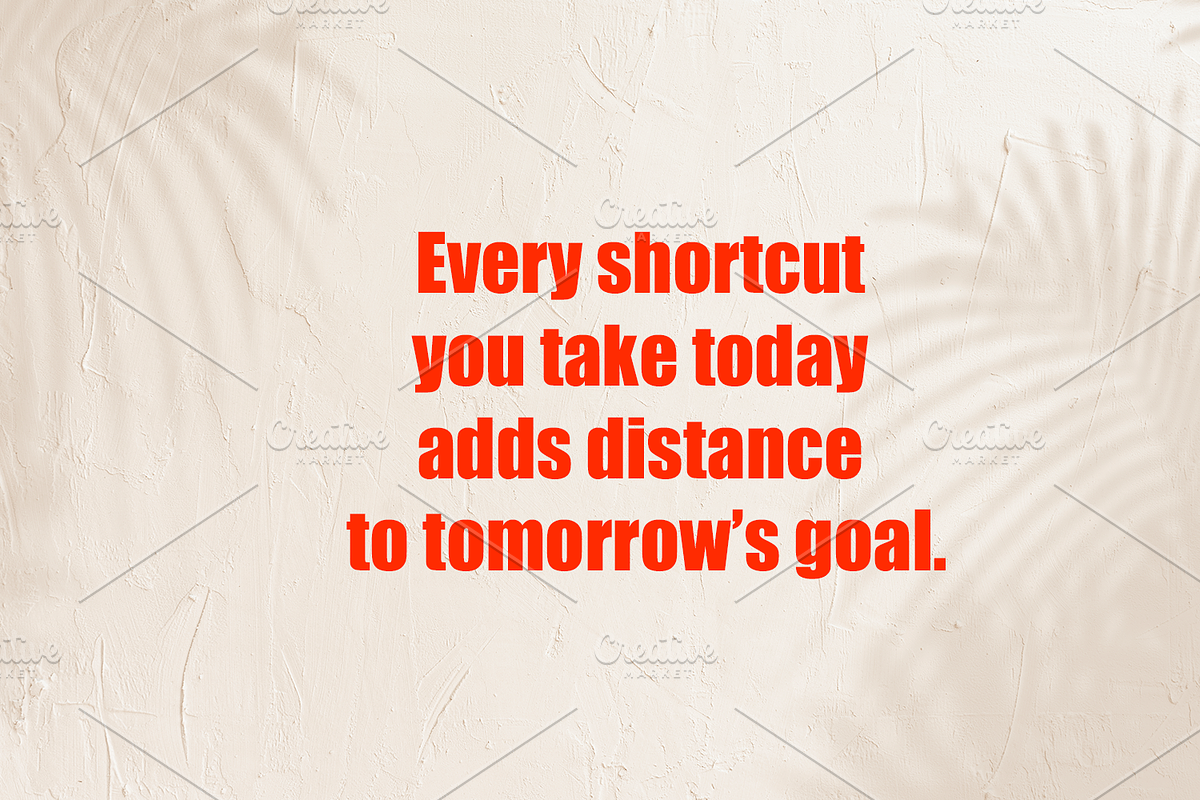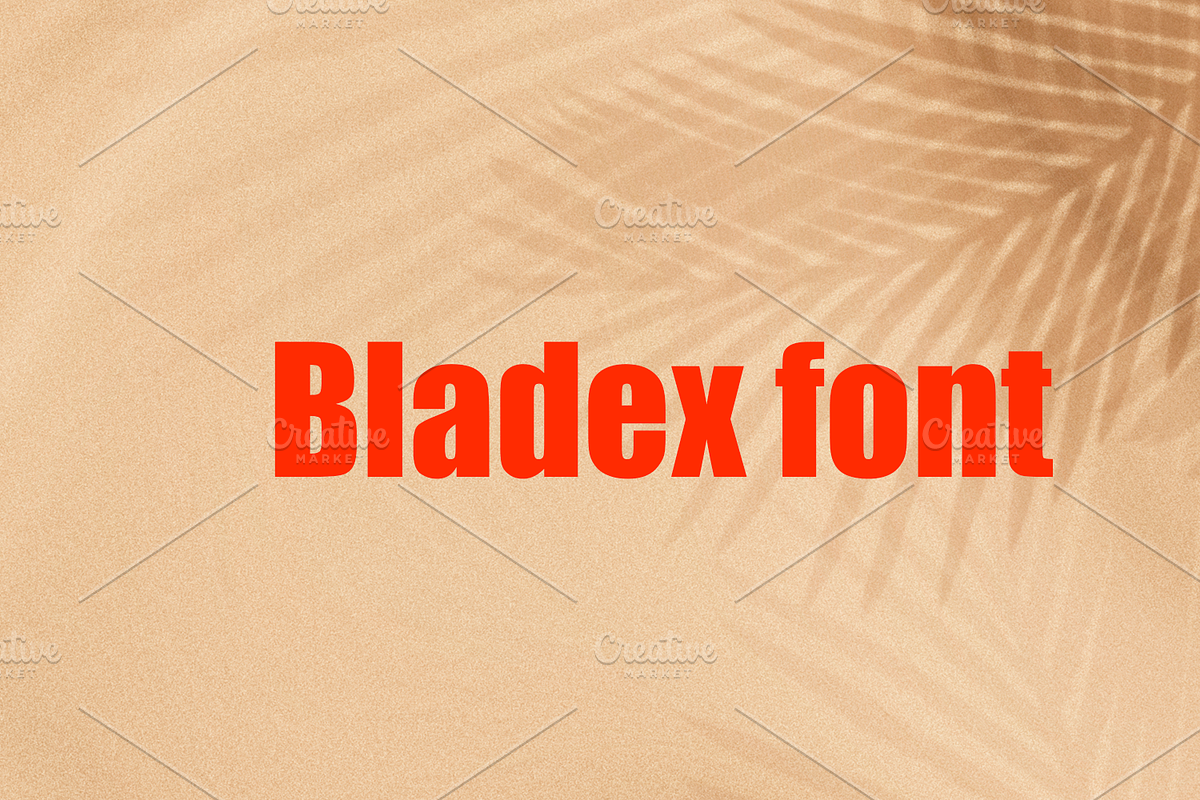
Introducing Bladex – a font forged for dominance. Its thick lines and razor-sharp angles give your headlines unstoppable power. Perfect for branding, logos, and bold ads that demand attention. With Bladex, every word hits harder. Make your message impossible to ignore.